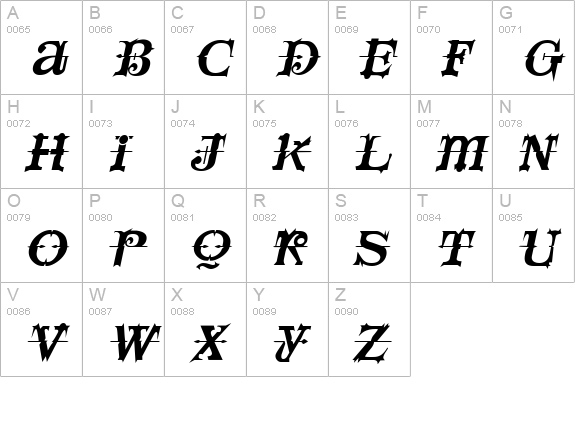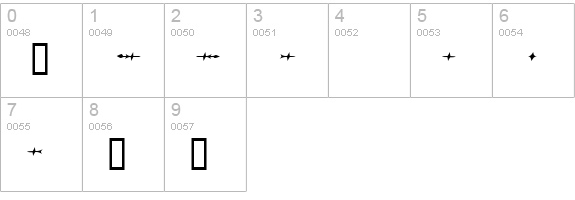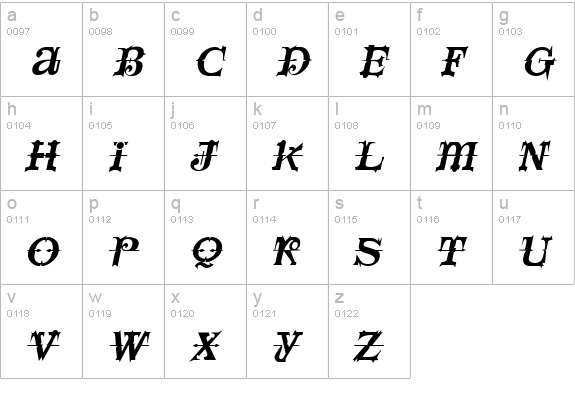
SpaceIvey Italic Font Details
SpaceIvey Italic is a distinctive, italic variant in the SpaceIvey typeface family \xE2\x80\x94 well suited to design and typography projects.
Introducing SpaceIvey Italic, a captivating and dynamic font that is sure to add an extra touch of elegance to any design project. With its sleek and modern curves, this font effortlessly combines sophistication with a hint of playfulness, making it perfect for a wide range of applications. SpaceIvey Italic offers a unique and stylish twist on traditional italic fonts. Its graceful slant and fluid lines create a sense of movement and energy, adding a touch of excitement to your text. Whether used for headlines, logos, or body text, this font will command attention and leave a lasting impression. One of the best features of SpaceIvey Italic is that it is freely available to download at FontsMarket.com. This means that you can easily access and use this font in your projects without any restrictions. Whether you're a professional designer or a creative enthusiast, this font provides you with the freedom to explore your creativity without any limitations. The versatility of SpaceIvey Italic makes it suitable for a wide range of design styles and themes. Its clean and legible characters ensure readability, while its subtle italicized effect adds a touch of sophistication. From sleek and modern designs to more whimsical and artistic creations, this font adapts effortlessly to any aesthetic. So why wait? Download SpaceIvey Italic today and elevate your designs to new heights. With its captivating style and the freedom it offers, this font is a must-have for anyone looking to make a statement. Let SpaceIvey Italic be the perfect companion for your next design project, and watch as it transforms your work into a true masterpiece. Remember, it's free to download at FontsMarket.com, so grab it now and let your creativity soar!